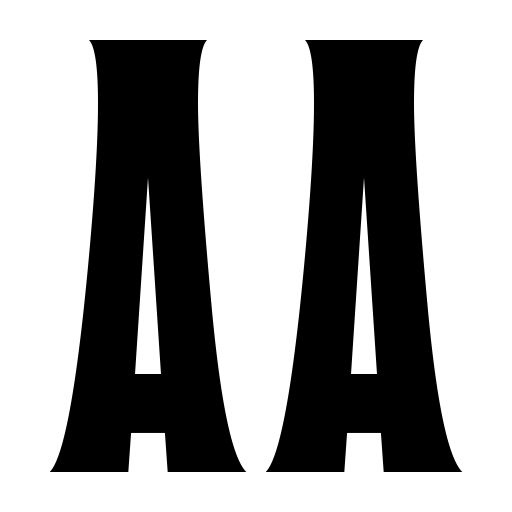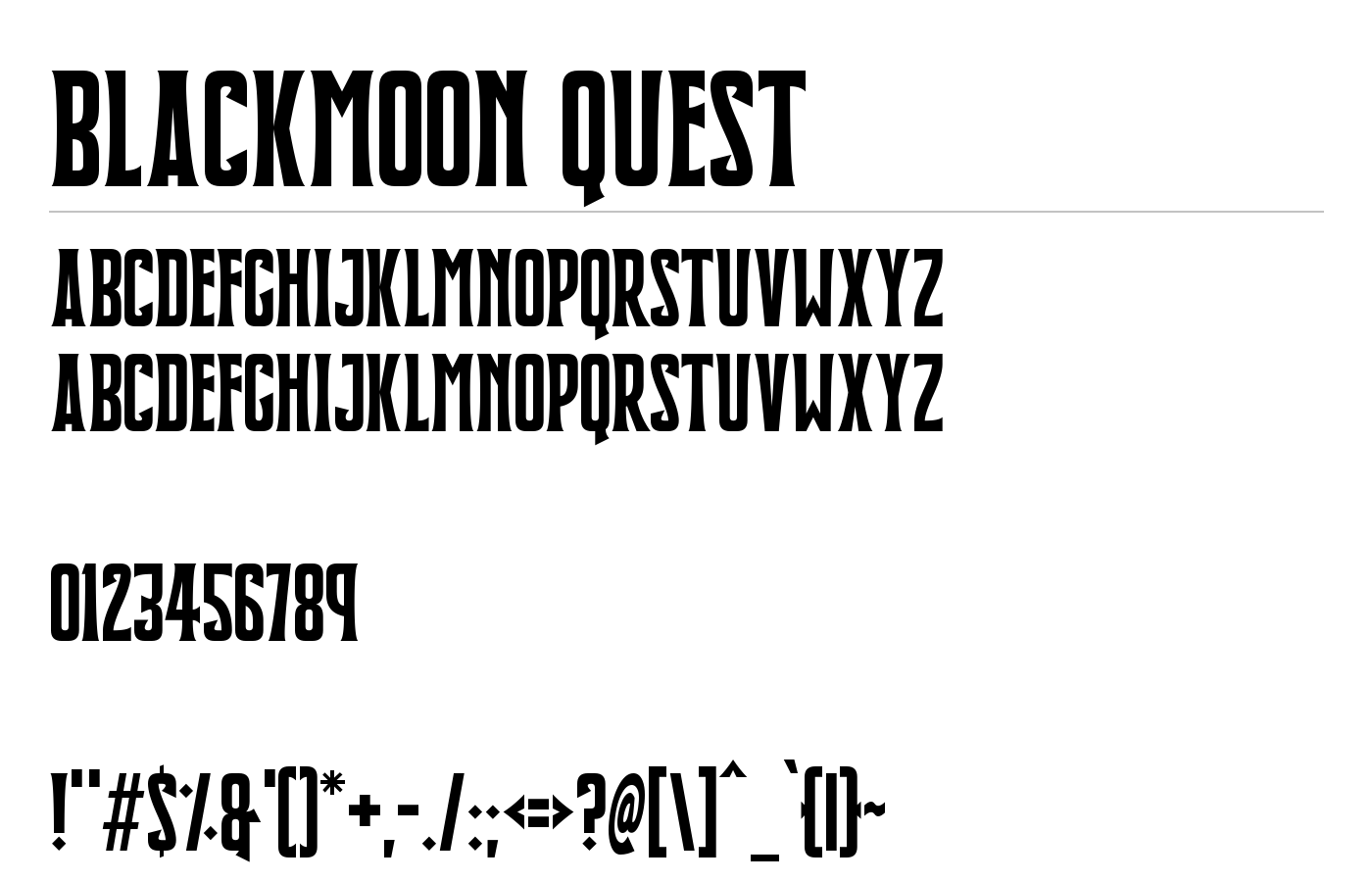
Blackmoon Quest is a bold, condensed display font with strong vertical emphasis and sharp, geometric shapes that create a striking, adventurous look. Its high contrast and unique letter details, like the distinctive tail on the Q, give it a dynamic and modern feel ideal for impactful headlines, logos, and branding that seek to convey strength and mystery. This font works perfectly for projects that want to capture attention with a bold, dramatic style.
Blackmoon Quest Font
About Blackmoon Quest Font